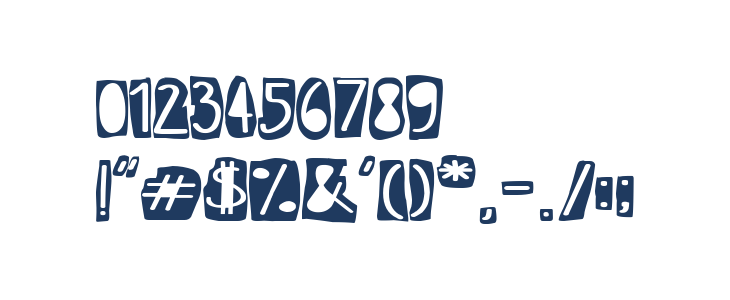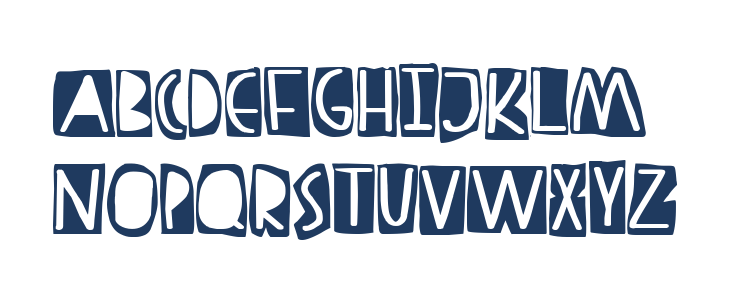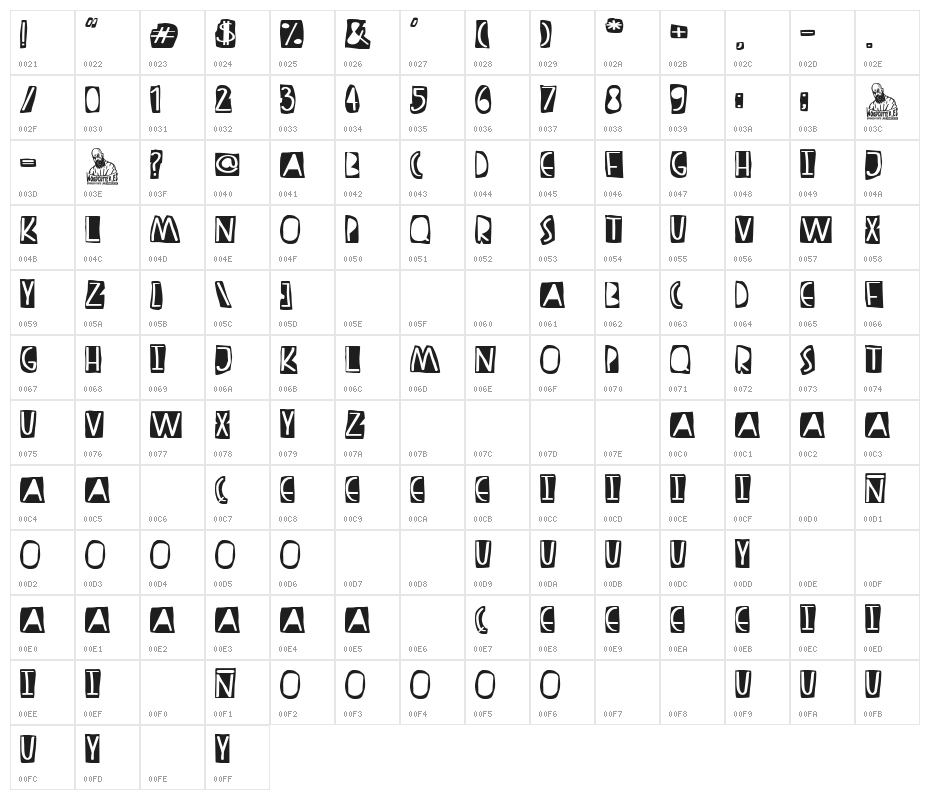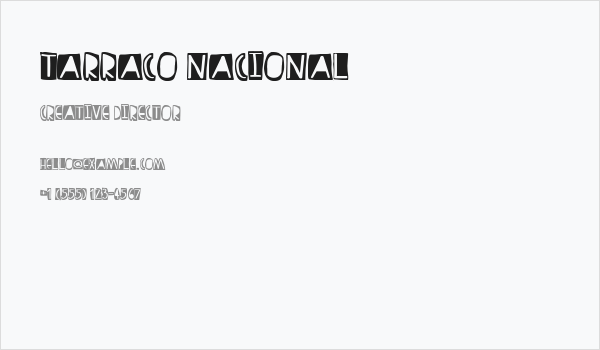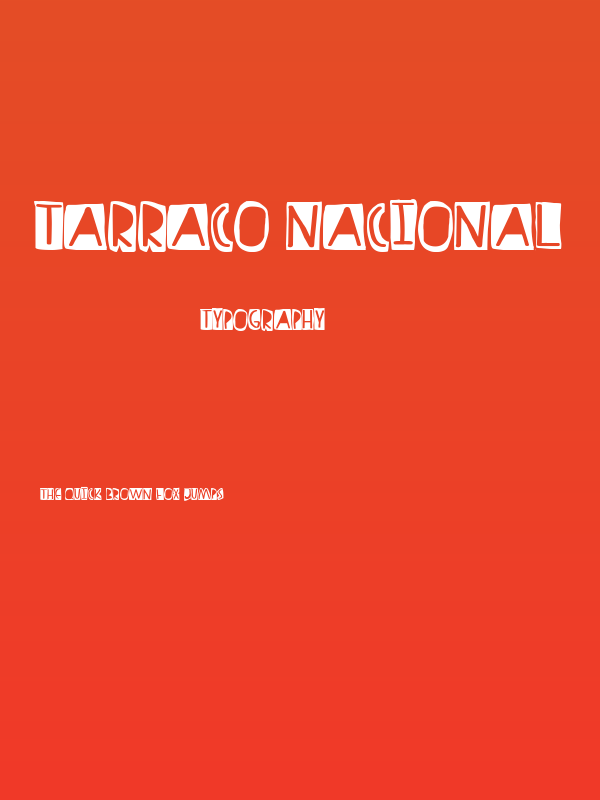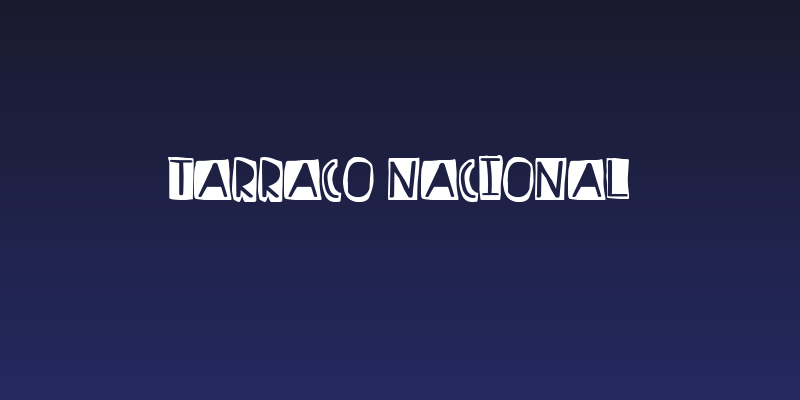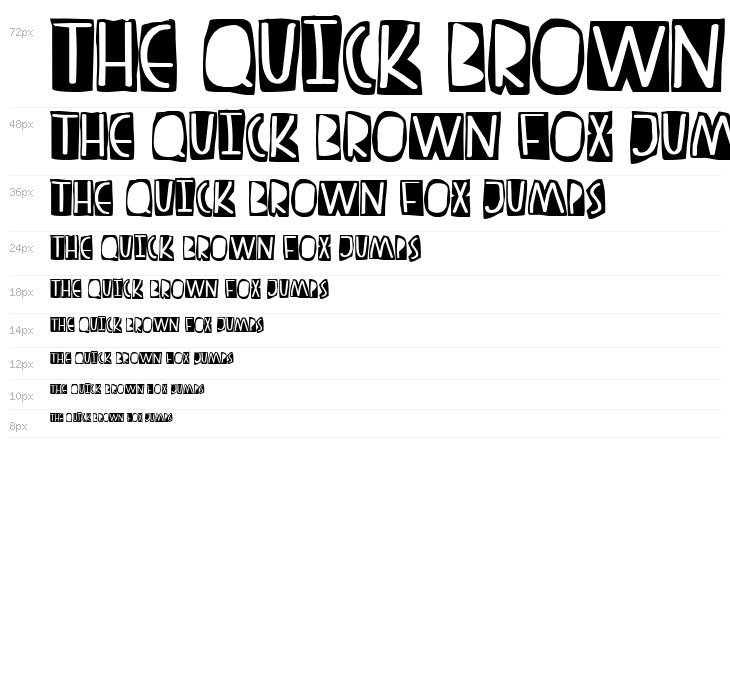
Tarraco Nacional Font
Tarraco Nacional Description
| Overall Style | Playful, Decorative, Hand-drawn |
| Use Case | Headlines, Posters, Logos, Short phrases |
| Proposed Projects | Posters, event flyers, children's books, comic titles, branding for creative or youth-oriented products. |